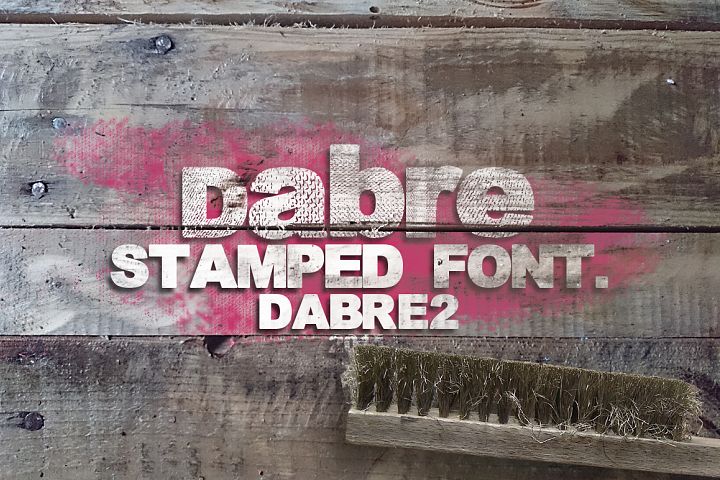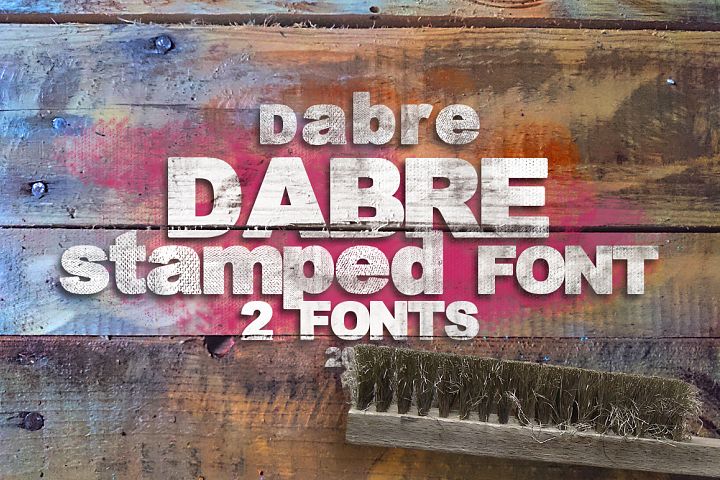
Introduction to Dabre Font
Have you ever been working on a creative project, staring at a blank canvas, trying to decide on the perfect font to capture the mood and tone you’re aiming for? That’s exactly what happened to many designers when they stumbled upon the Dabre Font – a sturdy typeface that exudes a rough, edgy feel perfect for a wide range of designs.
As a valuable design resource, the Dabre Font is an excellent addition to any designer’s toolkit, offering a high-quality solution for creating unique and eye-catching visual elements. Whether you’re looking to add a touch of ruggedness to your headings, logos, or invitations, or need a font that can stand out on a transparent background, this versatile font has got you covered.
Key Features of Dabre Font
- High-quality font designed for creative projects, offering a unique and stylish touch.
- Features a transparent background, allowing for seamless integration with any design element.
- Supports a wide range of languages, making it an ideal choice for multilingual creative projects.
Honest Review: Dabre Font
I recently stumbled upon the Dabre Font, and I must say it’s been a great addition to my design resource collection. As a designer, I’m always on the lookout for high-quality fonts to elevate my creative projects.
What works well: ✨ The Dabre Font is incredibly versatile and can be used for a wide range of design projects, from logos to brochures. Its modern and sleek design makes it perfect for contemporary branding. I also appreciate the transparent background, which gives me more flexibility when designing.
What doesn’t work well: ⚠️ One thing I wish the font had was more font styles. As it is, it’s mostly a single style font, which can limit its use in certain projects. Additionally, the font could benefit from more language support.
- Modern and sleek design
- Perfect for logos, brochures, and other design projects
Tips for Getting the Most Out of Dabre Font
Use the Dabre Font in combination with other design elements to create a unique and eye-catching visual identity. Experiment with different font sizes, colors, and styles to find the perfect balance for your creative project.
The Dabre Font is ideal for use in brochures, business cards, and other marketing materials where a high-quality, unique font is required. You can also use it in social media graphics, presentations, and other creative projects where a transparent background is needed.